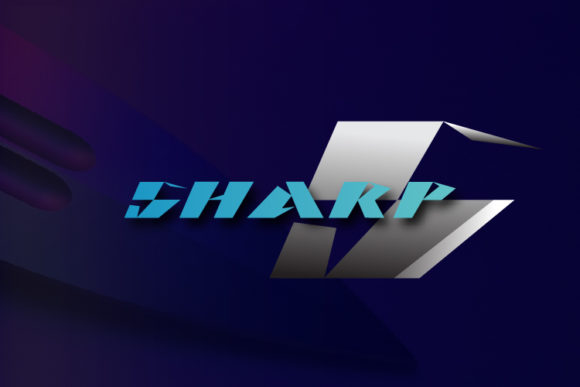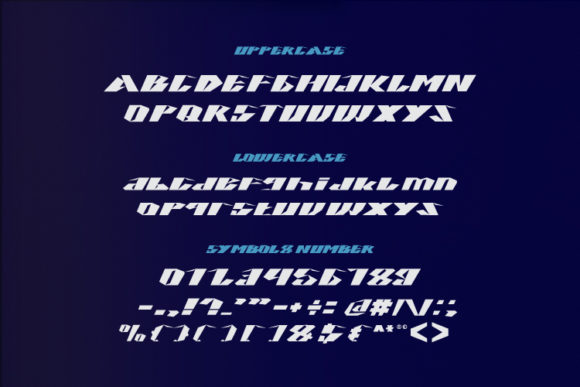
Unleash Your Inner Speed Demon with the Blade Font
Have you ever been on a high-speed thrill ride and felt the rush of adrenaline as you pushed the limits? That’s the kind of excitement the Blade Font aims to capture. This bold and authentic display font is all about embracing the raw energy of abstract shapes, celebrating their eclectic brilliance in a way that’s sure to leave a lasting impression.
Whether you’re working on a racing-themed project or just want to add a touch of speed to your design, the Blade Font is the perfect tool for the job. Its unique style and versatility make it a valuable asset for designers looking to take their work to the next level. With the Blade Font, you can create eye-catching graphics, logos, and even entire campaigns that will leave your audience breathless.
Key Features of Blade Font
- Unique Characteristics: The font features a futuristic and edgy design, with a blend of geometric and organic elements, making it ideal for science fiction, technology, and futuristic-themed projects.
- Kerning and Ligatures: The font includes advanced kerning and ligature pairs, ensuring smooth and natural text rendering, even in complex compositions.
Blade Font Review
I recently had the chance to work with the Blade font, and I must say it’s an interesting choice. Here are my thoughts:
- Unique aesthetic: The Blade font has a distinctive, futuristic look that can be a great fit for sci-fi or tech-related projects.
- High contrast: The font’s bold lines and contrasting colors make it easy to read, even at smaller sizes.
- Customization options: The font comes in a range of weights and styles, allowing for some flexibility in design.
- Limited legibility: While the font looks cool, its unique design can sometimes make it hard to read, especially for longer blocks of text.
- Not ideal for body text: Due to its bold, futuristic style, the Blade font isn’t well-suited for large blocks of body text.
- May not be accessible: Some users may find the font difficult to read or access, particularly those with visual impairments.
Overall, the Blade font is a great choice for projects that require a bold, futuristic look. However, it may not be the best option for more traditional or straightforward designs.
Use the Blade Font to add a touch of elegance and sophistication to your designs.
- Formal event branding and marketing materials.
- High-end product packaging and labeling.
Alternatives to Blade Font
Arial Black is a sans-serif font that is often used in headings and titles. It is a great alternative to Blade Font for designs that require a clean and modern look. Unlike Blade Font, Arial Black is more versatile and can be used in a wide range of applications, from business cards to billboards.
Comparison: Blade Font is more dramatic and attention-grabbing, while Arial Black is more understated and professional.
Impact is a sans-serif font that is known for its bold and dramatic look. It is a great alternative to Blade Font for designs that require a sense of urgency or importance. Unlike Blade Font, Impact is more aggressive and attention-grabbing, making it perfect for headlines and titles.
Comparison: Blade Font is more elegant and refined, while Impact is more bold and attention-grabbing.